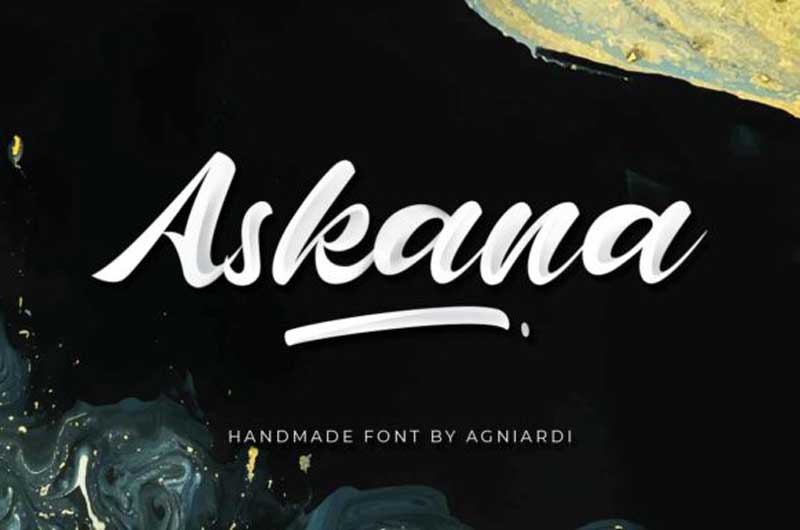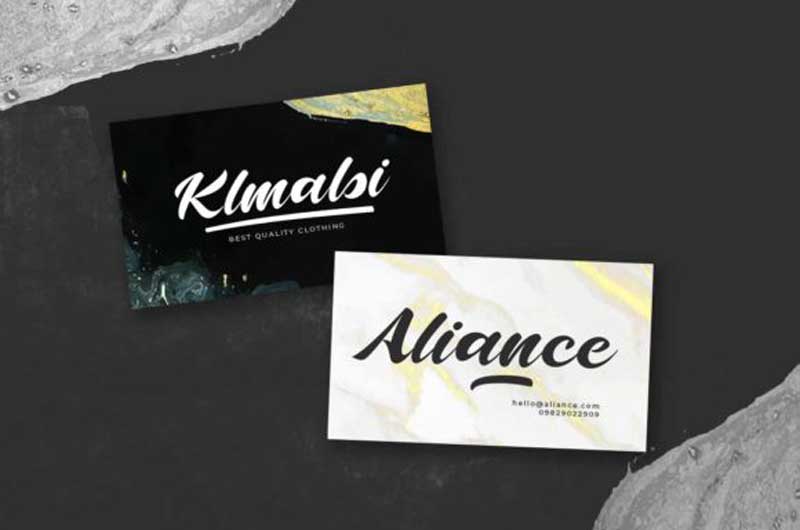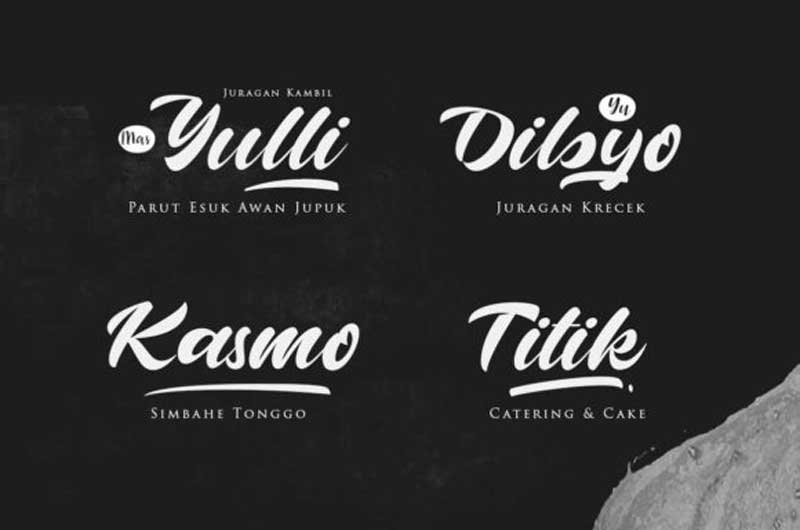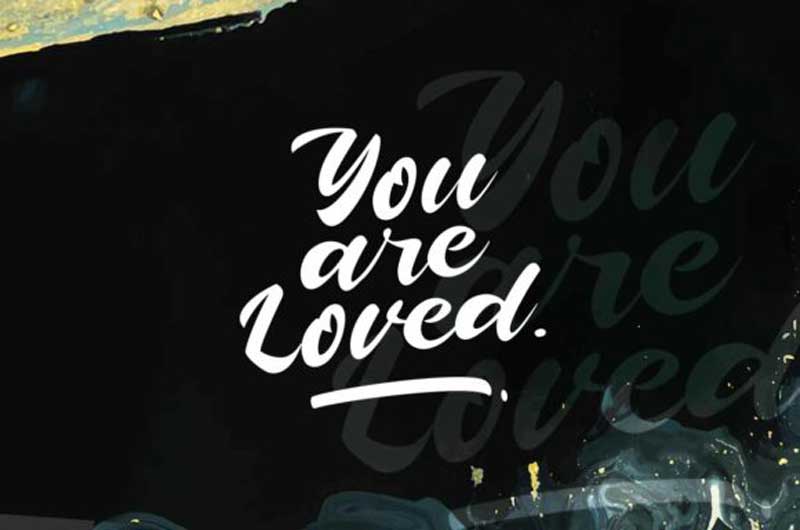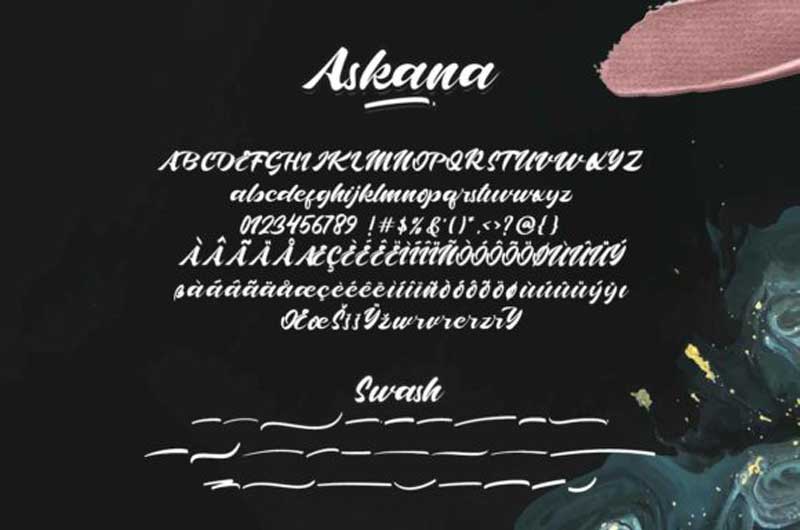
Askana Font Family
Askana is inspired by classic typography and brings its own unique style to any design project. This fantastic script font is suitable for a wide range of projects, from headings, wedding designs, invitations, signatures, logos, labels, and much more. also check out Angelica Script Font Family